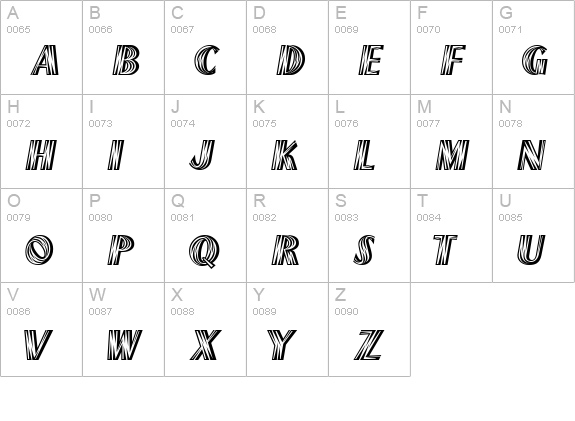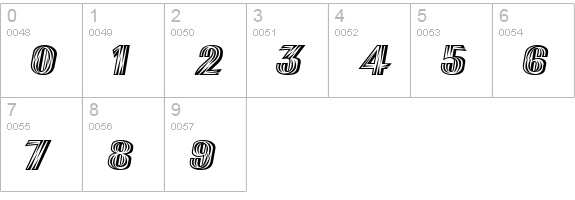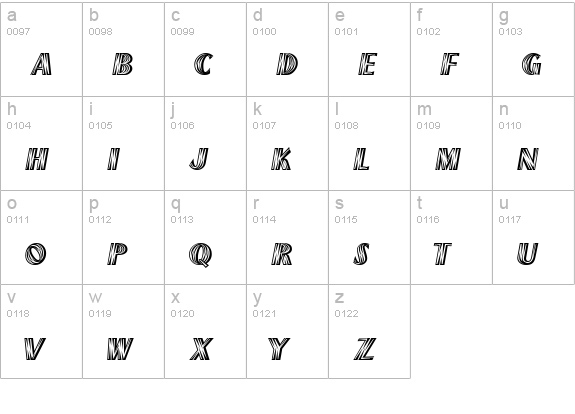
NewMexico Font Details
Introducing NewMexico font - a versatile and modern typeface that exudes elegance and sophistication. This carefully crafted font is perfect for a wide range of design projects, from branding to editorial design, thanks to its clean lines and stylish appearance. The NewMexico font is designed to make your text stand out and leave a lasting impression on your audience. What sets NewMexico font apart is not just its sleek design, but also the fact that it is available for free download at FontsMarket.com. Yes, you read that right - this high-quality font can be yours at no cost, making it an excellent choice for designers looking to elevate their work without breaking the bank. So why wait? Download NewMexico font today and add a touch of sophistication to your projects.